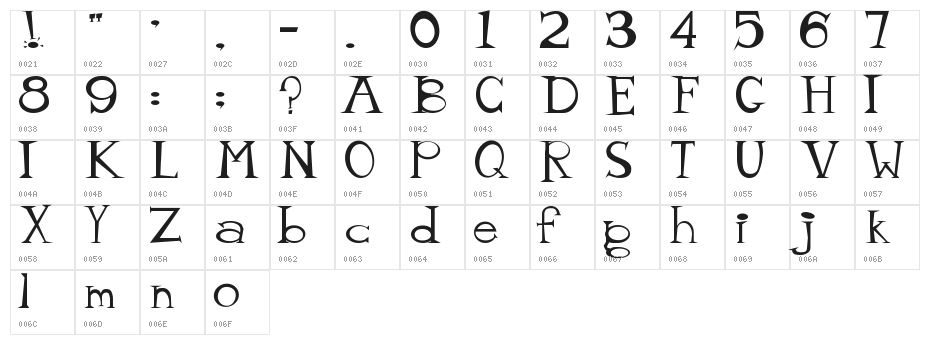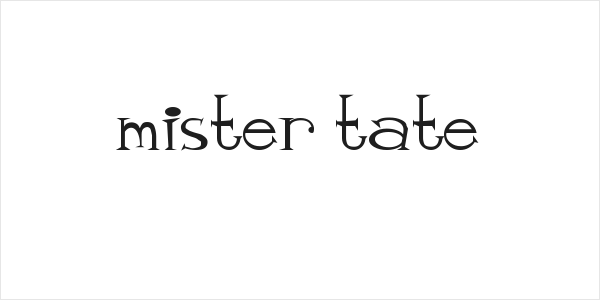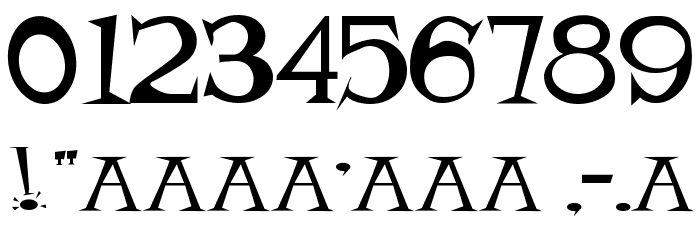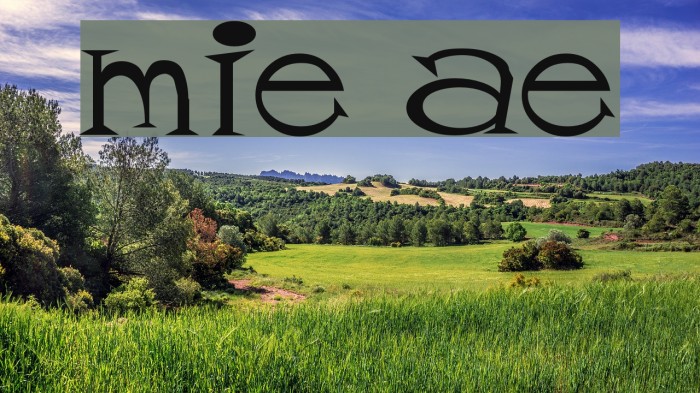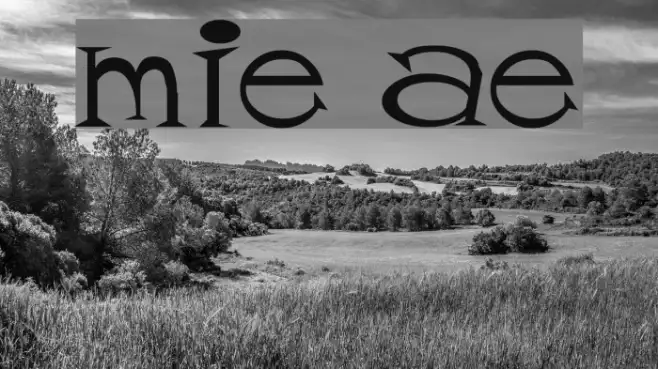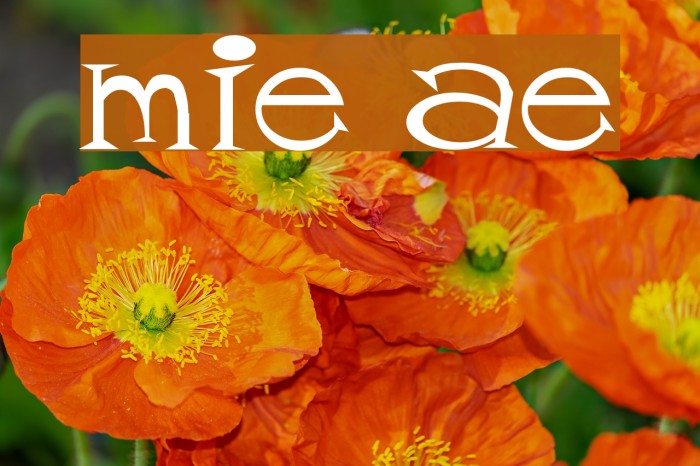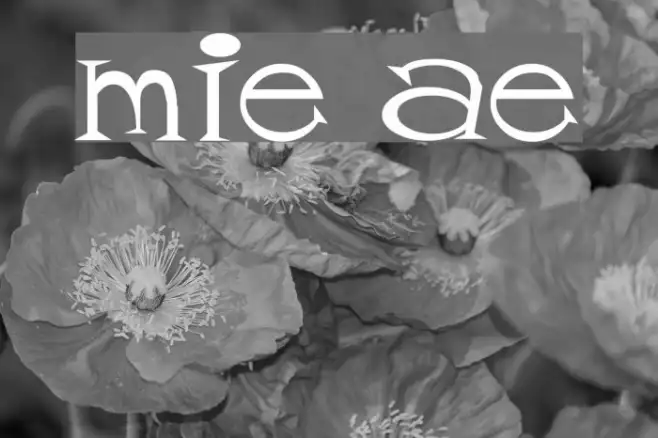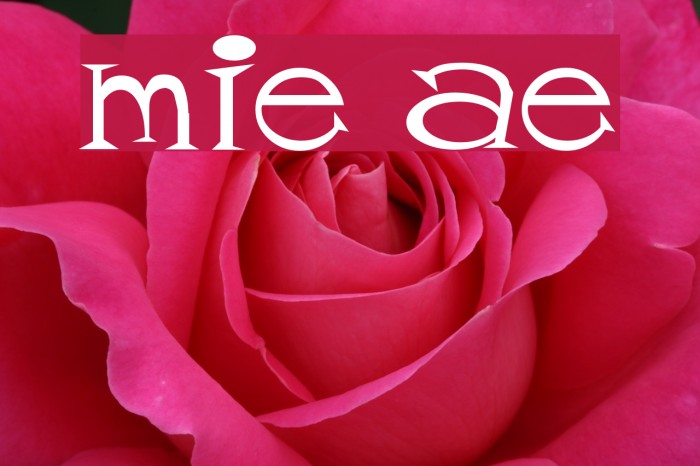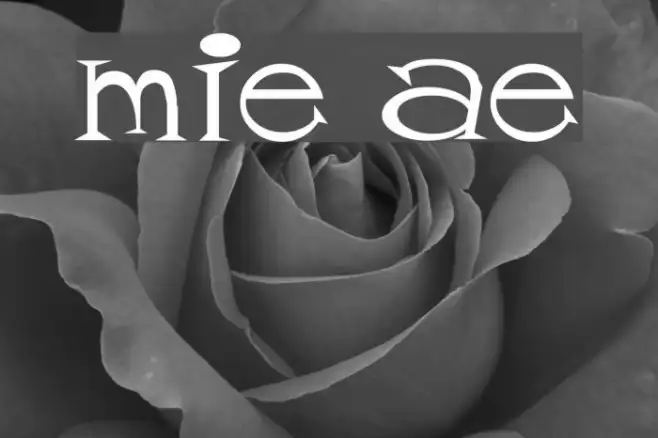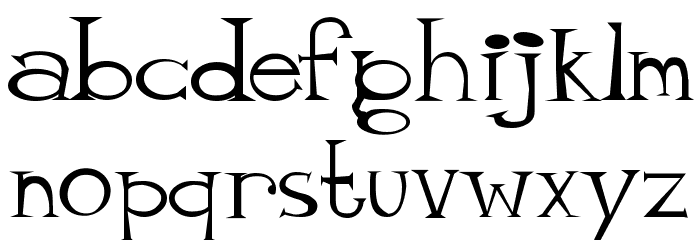
mister tate Font
mister tate Description
This font features a unique and artistic design with a playful twist on traditional serif elements. The characters exhibit a whimsical flair, with exaggerated serifs and varying stroke widths that create a dynamic and engaging appearance. The uppercase letters are bold and commanding, while the lowercase letters maintain a consistent style with a touch of elegance. Numbers are designed with a similar playful aesthetic, making them stand out. Special characters are creatively integrated, adding to the overall charm of the font. This font is ideal for projects that require a distinctive and eye-catching typeface.
| Proposed Projects | Ideal for creative branding, children's books, playful posters, and unique invitations. |